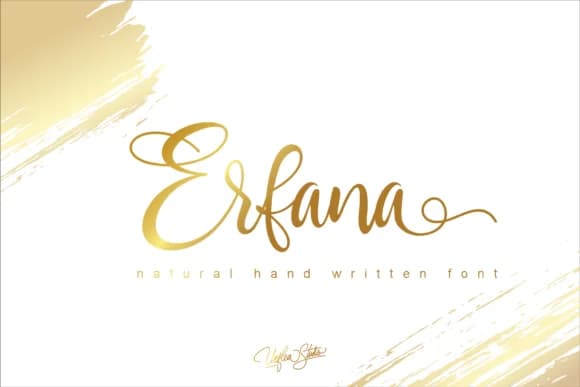
Erfana by Unflea Studio is a bold script font with confident letterforms and energetic flow that carries both formal grace and genuine character throughout. The typeface strikes that careful balance between elegance and personality, making it work as well on wedding invitation suites and save-the-date cards as it does on luxury fashion brand packaging or high-end boutique product labels. Strong, connected strokes deliver real visual impact without sacrificing legibility, even when set smaller than most script fonts, which means you can use Erfana across different sizes and contexts.
What makes this typeface genuinely valuable is its refusal to fade into the background. It works beautifully in projects where handmade energy and confidence lift the work from ordinary to something people notice. Consider it for custom greeting card designs, restaurant menu headers, upscale cosmetics packaging, or Etsy product labels where your brand needs immediate visual presence. The brushed, hand-drawn quality reads contemporary and modern, yet carries enough traditional craft sensibility to feel timeless rather than trendy. Build bold headlines around it, or construct an entire brand identity using its personality as your anchor.
Erfana Font is a script font that shines as a display or heading face. Pair it with a clean sans-serif or serif font for body text β the contrast creates a clear hierarchy while the two styles stay balanced and easy to read.